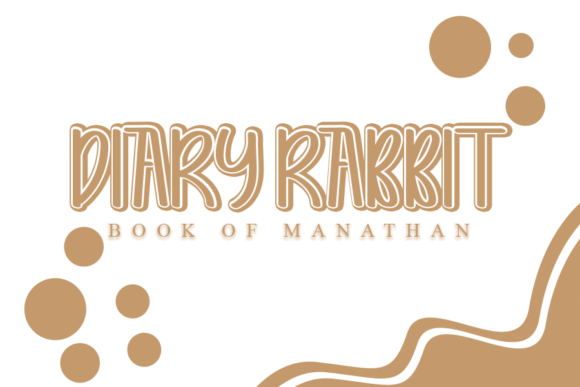
Discover the Magic of Diary Rabbit Font
Have you ever found yourself sitting at your desk, surrounded by scraps of paper, paint swatches, and half-finished sketches, trying to bring your latest design idea to life? That’s exactly where I was when I stumbled upon the enchanting Diary Rabbit Font. Its friendly, handwritten style immediately caught my eye and sparked a wave of creativity within me.
As it turns out, Diary Rabbit Font is more than just a pretty face – it’s a versatile tool designed to help you bring your most imaginative ideas to fruition. With its natural and well-balanced style, this font is the perfect addition to any design project, from elegant wedding invitations to playful children’s books.
Whether you’re a seasoned designer or just starting out, the Diary Rabbit Font is an invaluable asset that will help you unlock your full creative potential. So why not give it a try and see where your imagination takes you?
- Font Family: Diary Rabbit is a unique handwritten font family, ideal for creative projects.
- Character Set: The font family includes uppercase and lowercase letters, numbers, punctuation marks, and special characters, making it suitable for a wide range of applications.
- Unique Characteristics: Diary Rabbit features a distinctive, handwritten style with varying line widths, subtle flourishes, and organic shapes, adding a personal touch to any design.
Designer Review: Diary Rabbit Font
First off, I love the whimsical charm of Diary Rabbit Font ✨. The playful, handwritten feel is perfect for adding a touch of personality to children’s books, greeting cards, or any project that needs a dash of warmth. The font’s unique, cursive lines and rounded edges make it a standout choice for designers looking for something more organic.
The font’s versatility is another major plus ✨. It works beautifully for both display and body text, making it an excellent choice for titles, headings, and even short paragraphs. I’ve used it for designing a series of children’s book covers, and the results have been fantastic.
While Diary Rabbit Font is a great choice for many projects, there are a few limitations to keep in mind ⚠️:
- It may not be the best choice for large blocks of text, as the letterforms can become quite ornate and difficult to read.
- The font’s handwritten feel may not be suitable for formal or professional projects.
- It’s not as legible at smaller font sizes, so it’s best to use it at larger sizes or with bold weights.
Overall, I’d say Diary Rabbit Font is a delightful addition to any designer’s toolkit ✨. While it may have some limitations, its unique charm and versatility make it a great choice for many projects.
Getting the Most Out of Diary Rabbit Font
Here are some tips for getting the most out of Diary Rabbit Font:
- Use it for titles and headings to add a touch of whimsy to your design.
- Pair it with other playful fonts to create a unique and eye-catching look.
- Use it for quotes, captions, and other text elements to add a personal touch.
Diary Rabbit Font is commonly used for:
- Children’s books and educational materials.
- Blog posts and social media captions.
- Wedding invitations and party decorations.
Alternatives to Diary Rabbit Font
Pacifico is a beautiful, elegant script font perfect for creative projects, invitations, and wedding designs. It features a modern and sophisticated look, making it ideal for designers looking for a refined and stylish font.
Compared to Diary Rabbit Font, Pacifico is more elegant and refined, making it suitable for high-end designs. While Diary Rabbit Font has a more playful and whimsical feel, Pacifico is better suited for projects that require a more mature and sophisticated look.